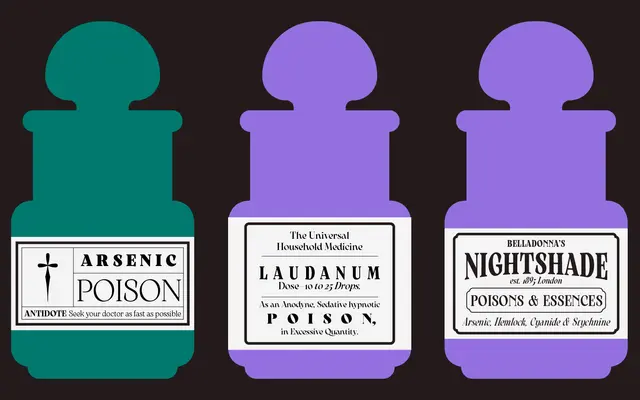
Arsenica Narrows
Zetafonts · Francesco Canovaro · 2024
A condensed extension of the Arsenica family drawing on early 20th-century Italian poster lettering, offered across six subfamilies with narrow and condensed widths in seven weights.
Designed by Francesco Canovaro with contributions from Filippo Sgarlata, the family takes its cues from the poster art of Giorgio Muggiani, whose lettering appeared on campaigns for Cinzano and Pirelli alongside Art Nouveau and Deco visual idioms. Six subfamilies span Narrow and Condensed widths, each available from Thin to Extrabold with italics, alongside upright-only Alt cuts and the Antiqua variant; two variable fonts cover weight and optical size axes. Coverage extends to over 200 languages across Latin, Cyrillic and Greek scripts.
Low-contrast Old Style proportions with vintage Italian poster art influences, condensed and narrow cuts that retain humanist serif characteristics drawn from early 20th-century lettering traditions.